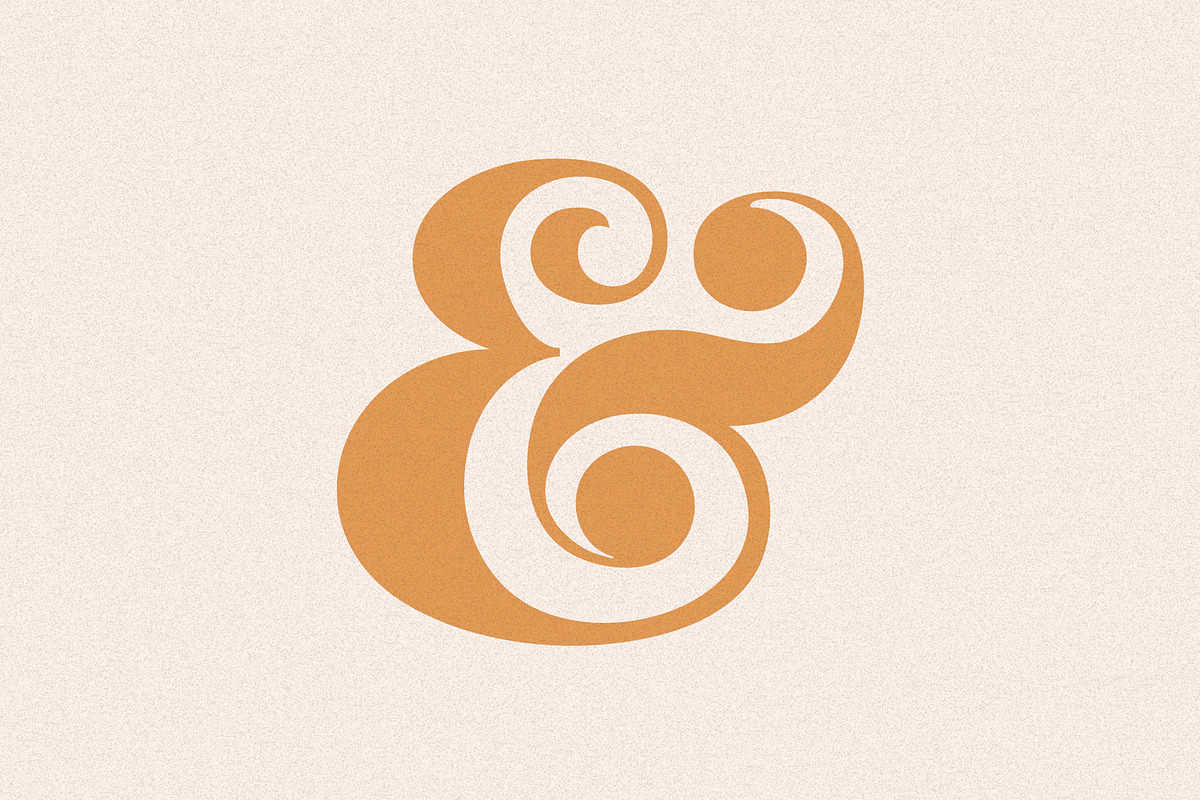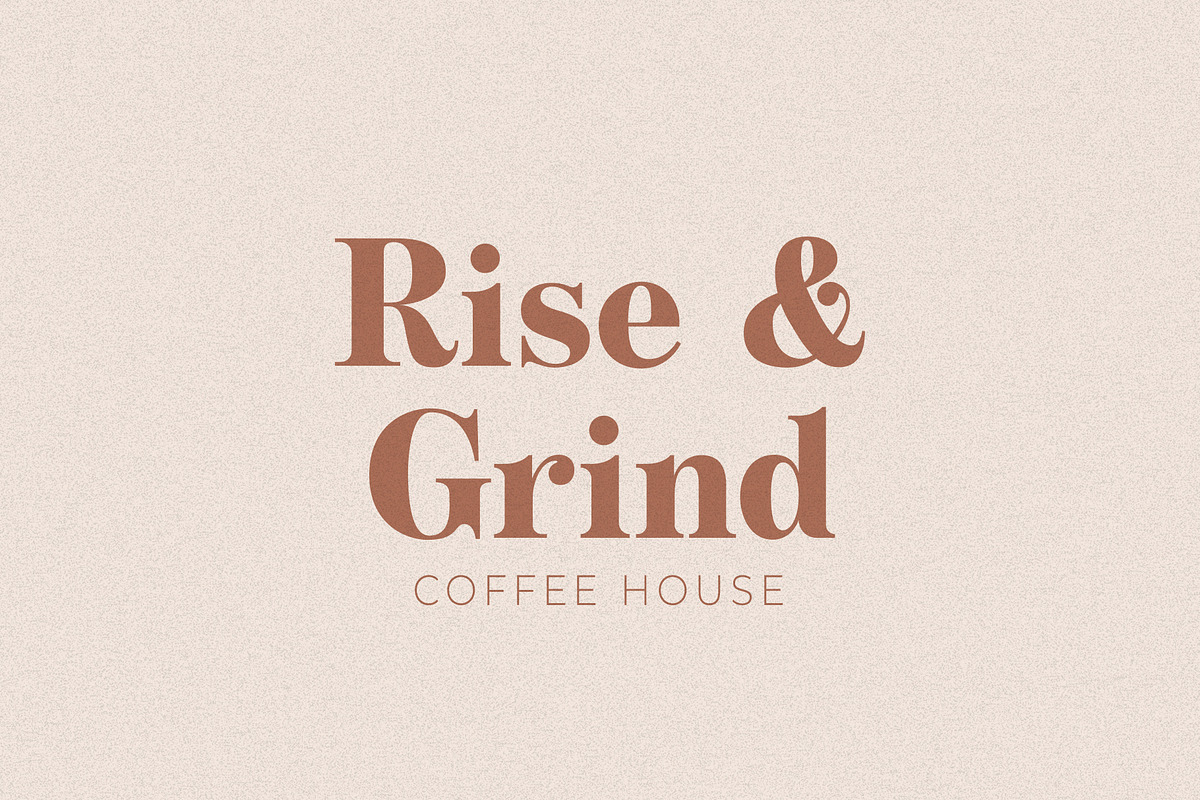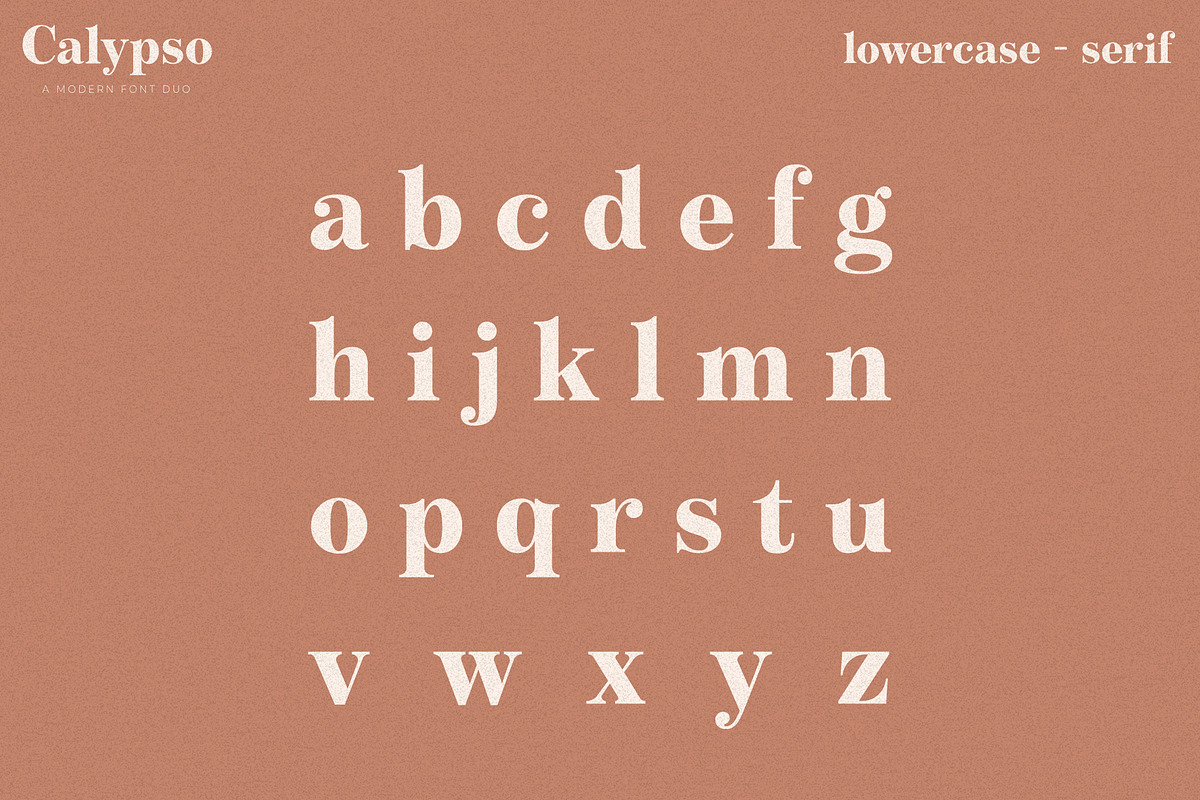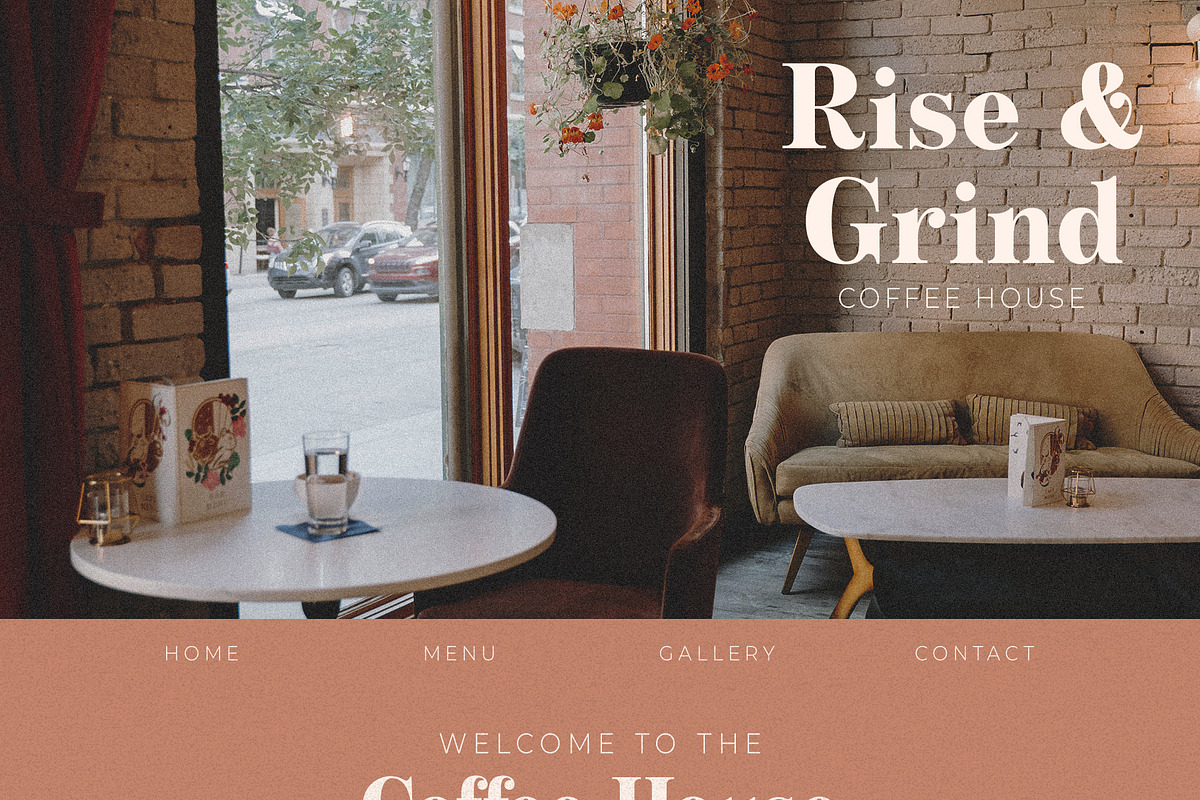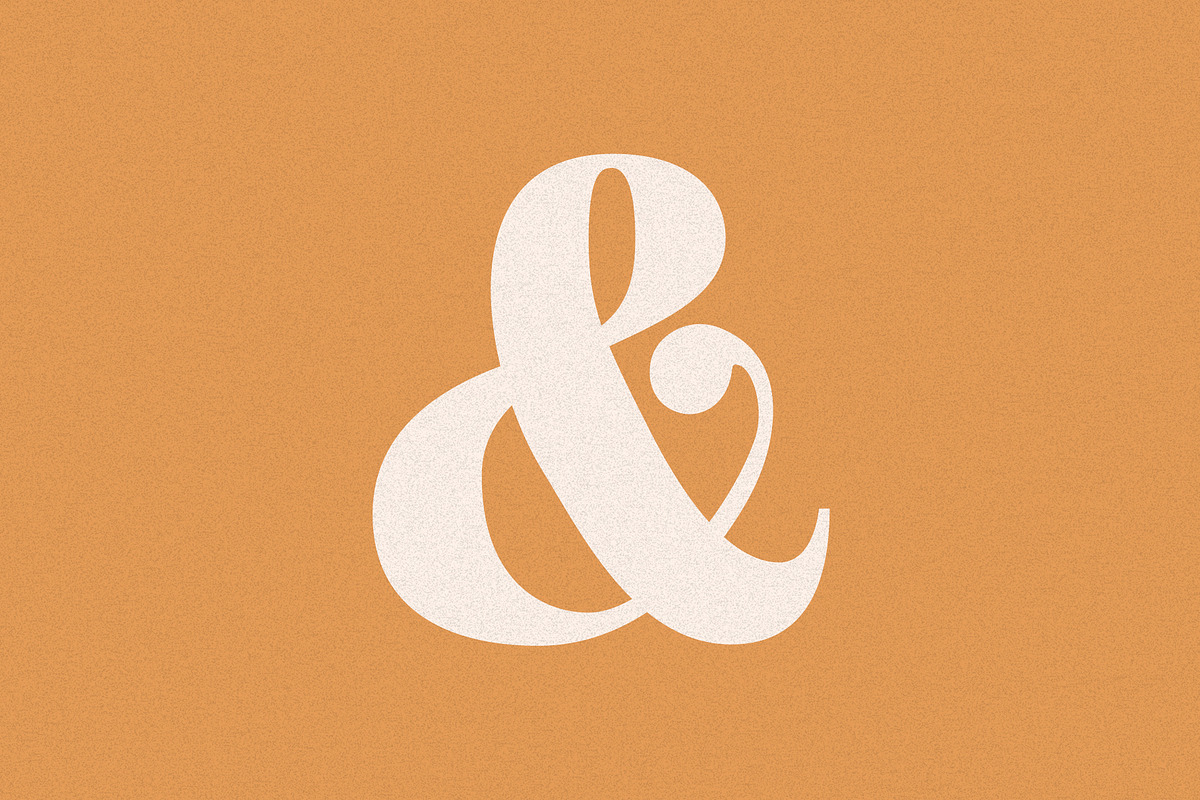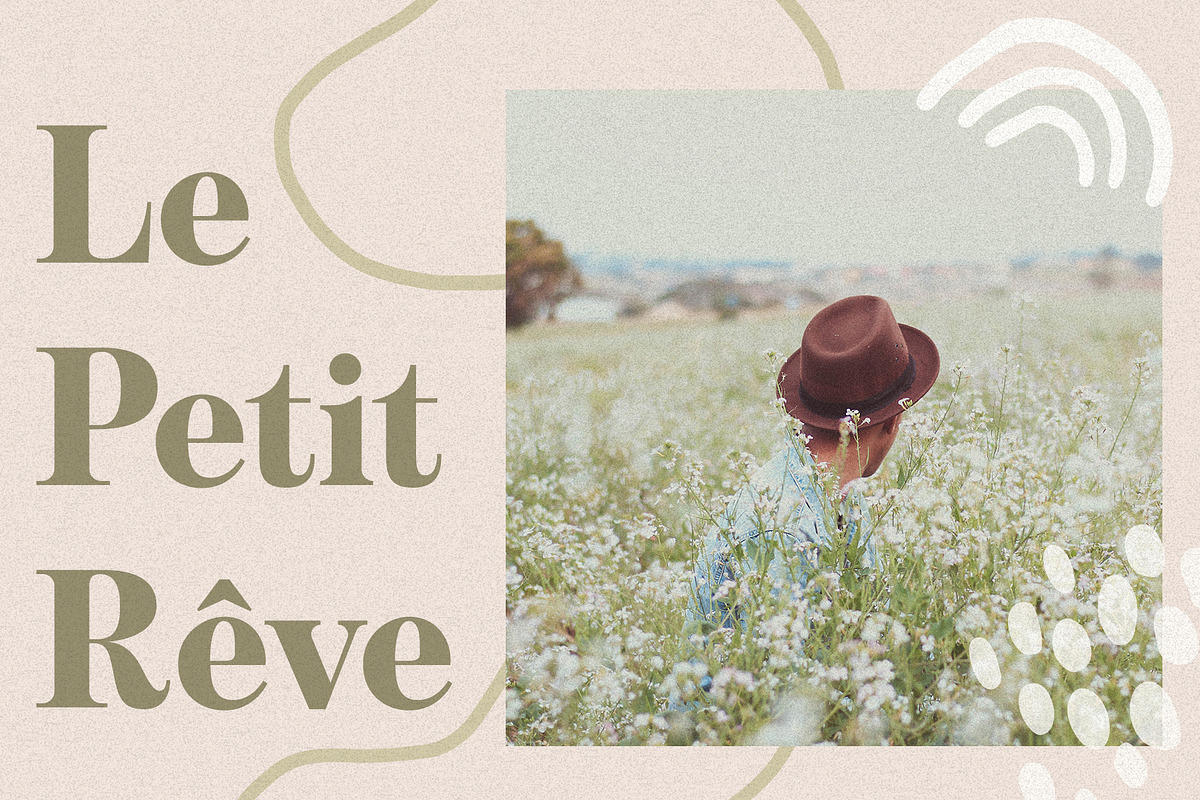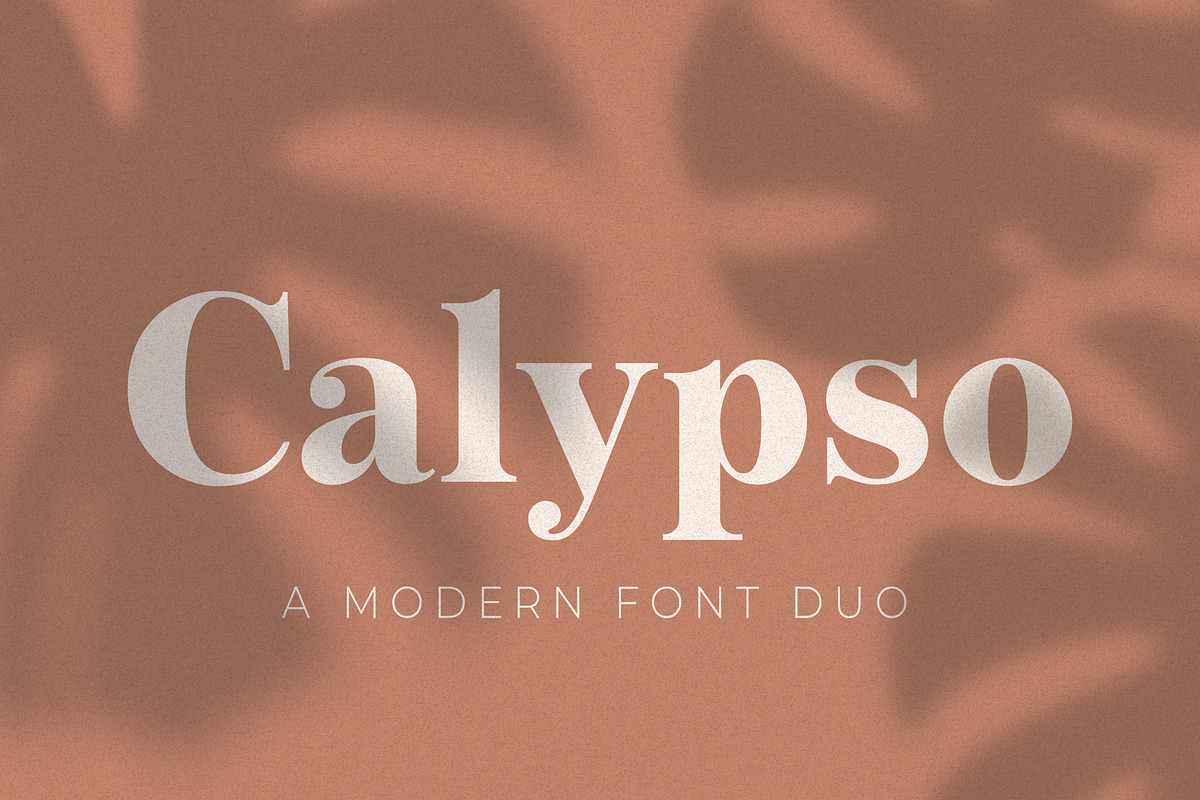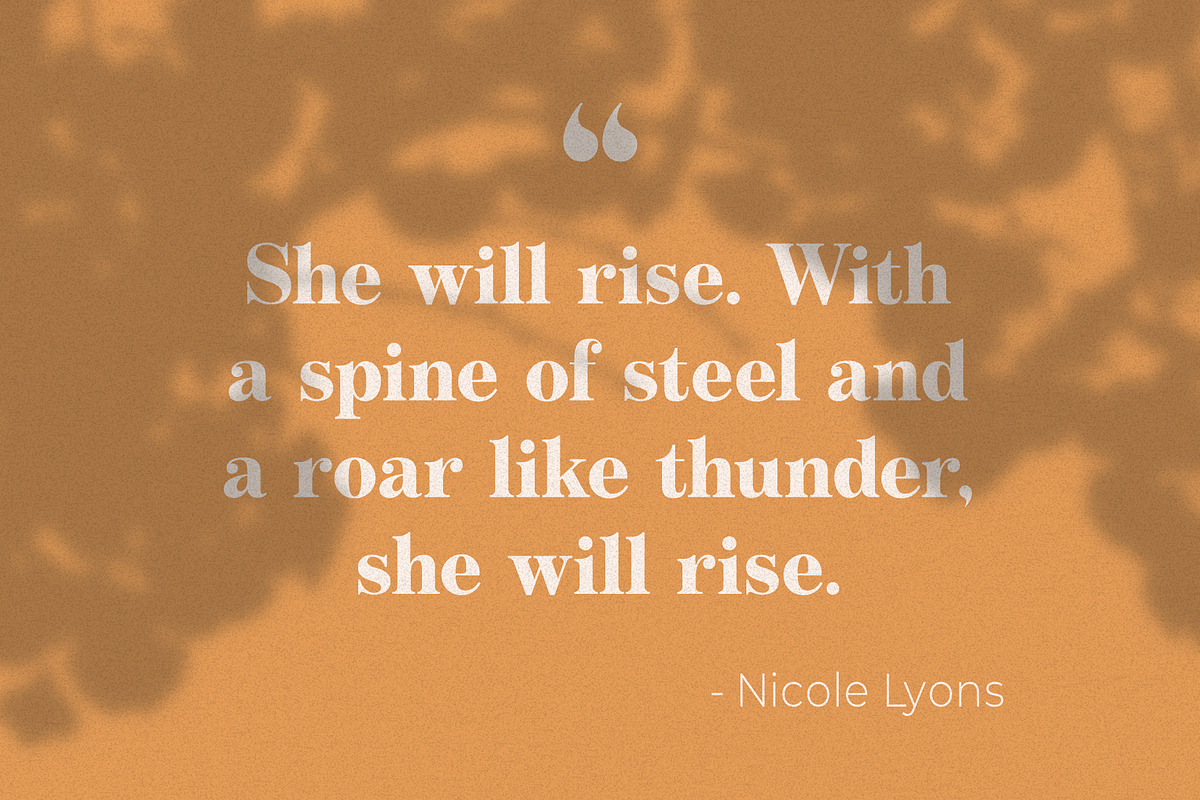
Calypso // A Modern Font Duo
Calypso is a modern serif and sans serif duo. Perfect for all sorts of projects such as logo design, branding, web design, packaging, social media, and so much more!
Upper and lowercase letters
Numbers and punctuation
Accented characters for the international designer